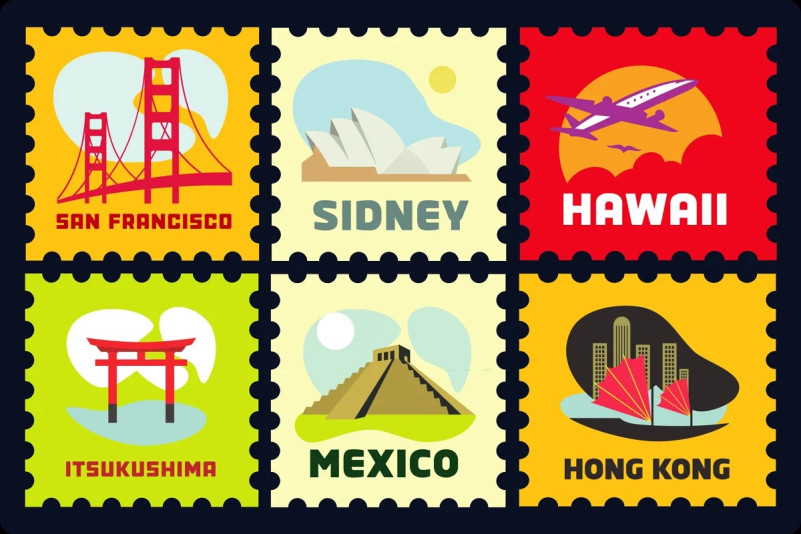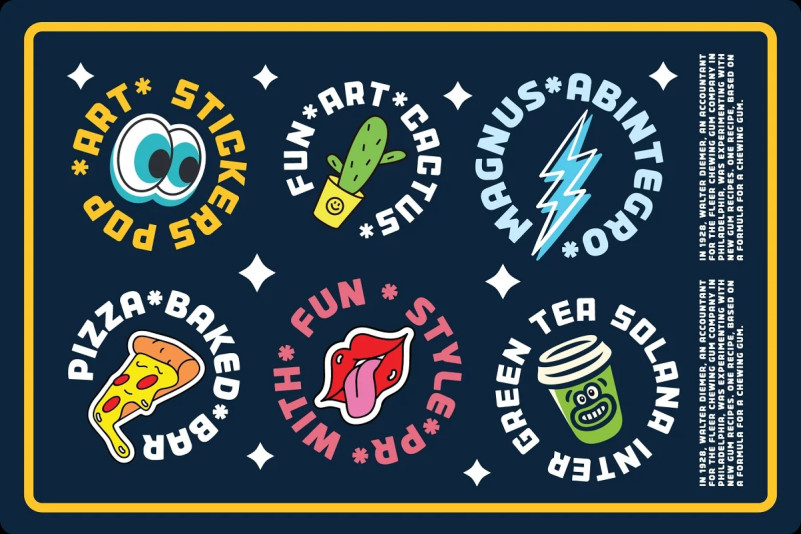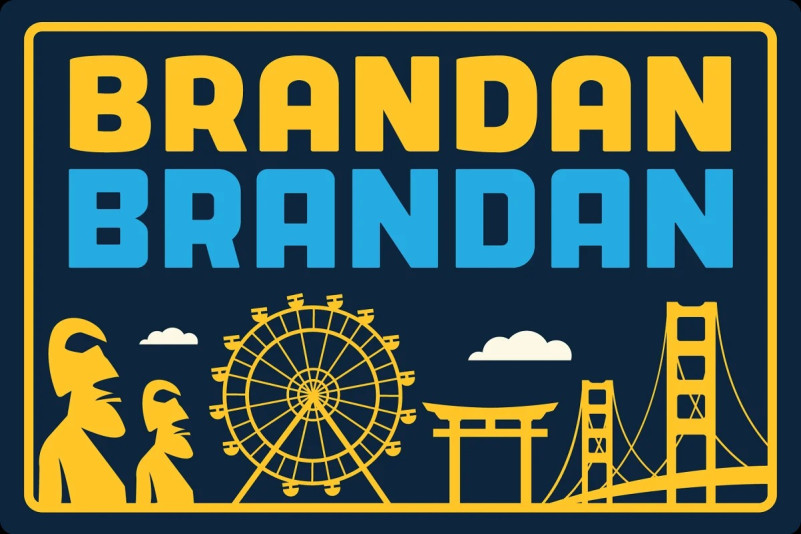
Brandan Font
Brandan Sans Serif Font is a fun sans-serif font in 2 variants, created especially for circular logos. Brandan’s letters fill zones very effectively in circular logos, so it looks organic. Overall it looks great in any type of logos and names. Two variations are killer combos. If you have this font in the library you can be sure that in 95% scenarios this font will be useful.